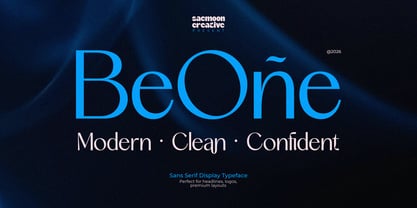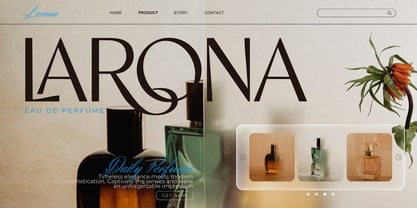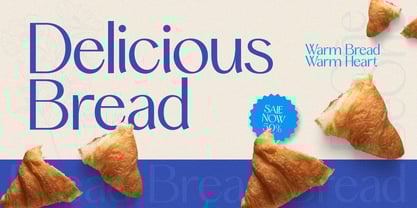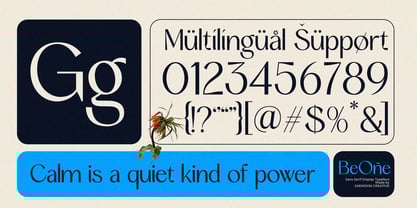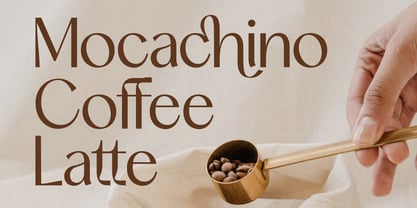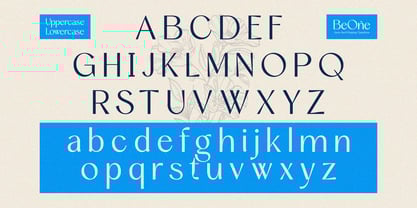
Beone Sans
by Saemoon Creative
The Beone Sans Font Family was designed by Sapto Susilo and published by Saemoon Creative. Beone Sans contains 2 styles and family package options.
Beone Sans is a modern sans serif display typeface designed with a clean structure and confident personality. Its balanced proportions, smooth curves, and refined details create a contemporary look that feels elegant, professional, and highly readable. Equipped with carefully crafted ligatures, Beone Sans adds a subtle uniqueness to letter combinations, enhancing visual flow and giving designers more expressive control without sacrificing clarity. These ligatures make the font feel more premium and distinctive, especially in branding and headline use. Designed for impact and versatility, Beone Sans is ideal for headlines, logos, branding systems, editorial layouts, posters, fashion projects, and modern digital designs. Clean yet expressive, it delivers a strong visual presence with a timeless, confident appeal. Perfect for: Branding, logos, headlines, posters, editorial design, fashion, and premium modern layouts.
Designers: Sapto Susilo
Publisher: Saemoon Creative
Foundry: Saemoon Creative
Design Owner: Saemoon Creative